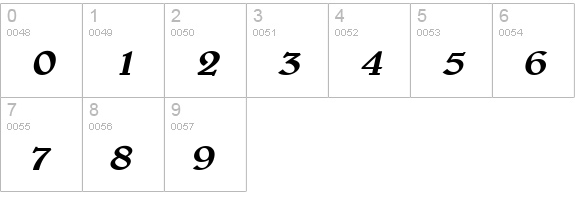
Blew Wide Italic is a distinctive, extended-width, italic variant in the Blew typeface family \xE2\x80\x94 well suited to design and typography projects.
Introducing Blew Wide Italic font - a sleek and modern typeface that exudes sophistication and style. Its italicized design adds a touch of elegance to any project, whether it's for print or digital use. The unique combination of wide letterforms and subtle curves gives Blew Wide Italic font a distinct and eye-catching look that will make your text stand out. And the best part? Blew Wide Italic font is available for free download at FontsMarket.com! That's right, you can add this stunning font to your collection without spending a dime. With its versatility and charm, Blew Wide Italic font is perfect for a wide range of design projects, from logos and branding to invitations and posters. Upgrade your typography game today with Blew Wide Italic font - the free font that delivers style and sophistication effortlessly.